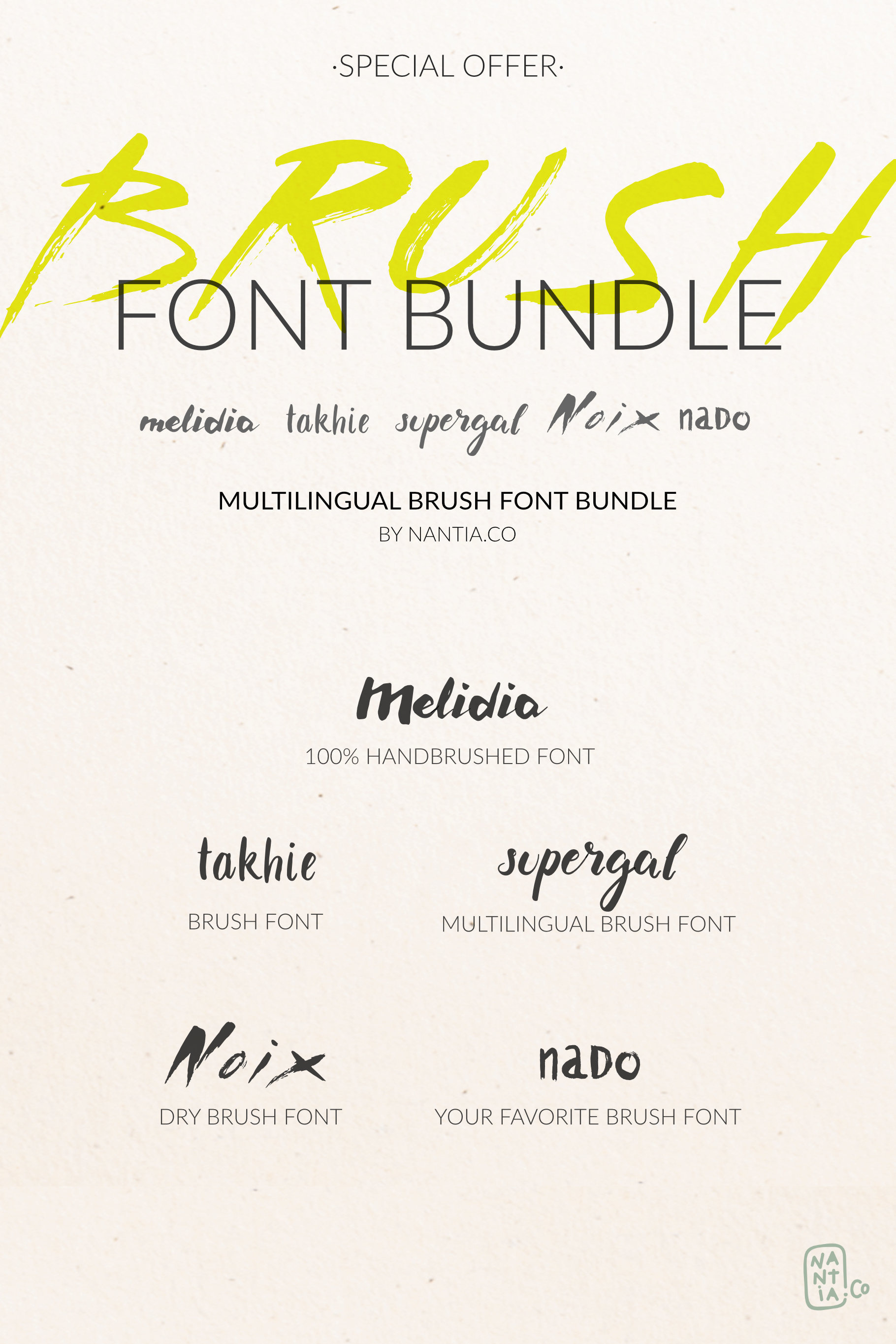
This is a discounted Font Pack of all my brush fonts. All the fonts in the pack are multilingual lettering fonts with Greek (of course), Latin characters, and diacritics.
Brush fonts are ideal for the food industry, for food branding, for restaurant menus and packaging. Additionally you can use Brush Fonts for lovely wedding and baby shower invitation designs. Especially if you are looking for a font for Instagram quote posts or any other social media content, this pack is for you!